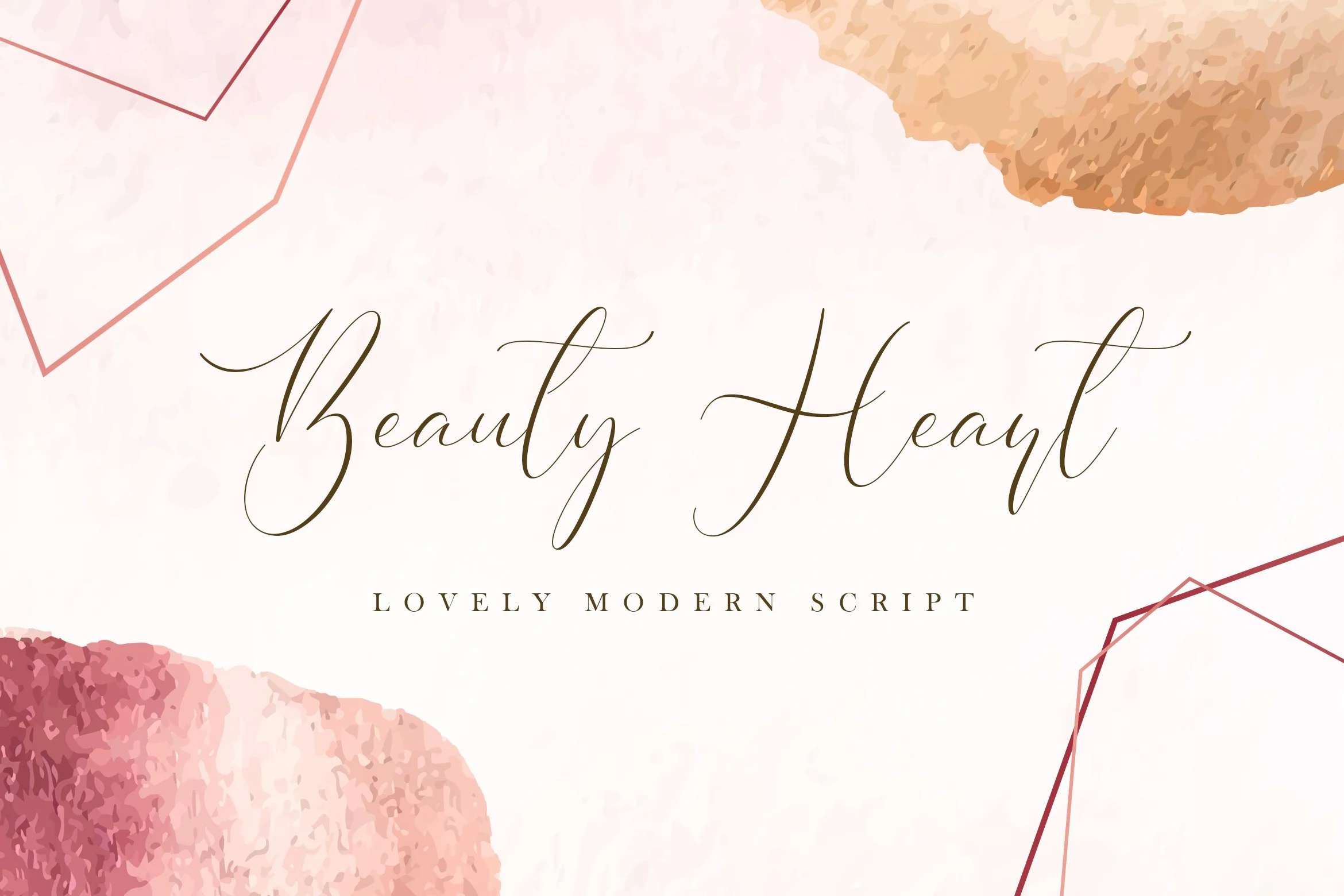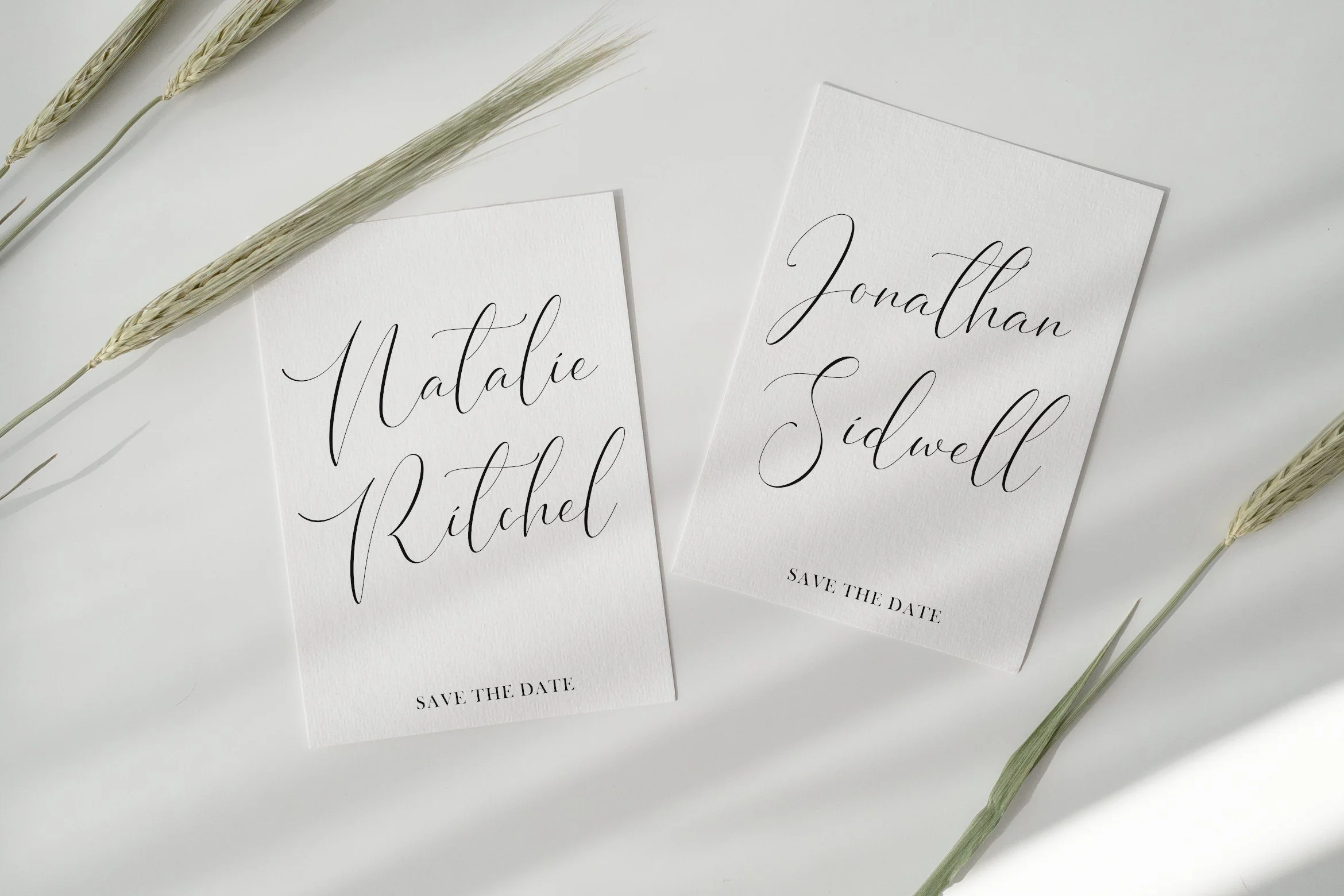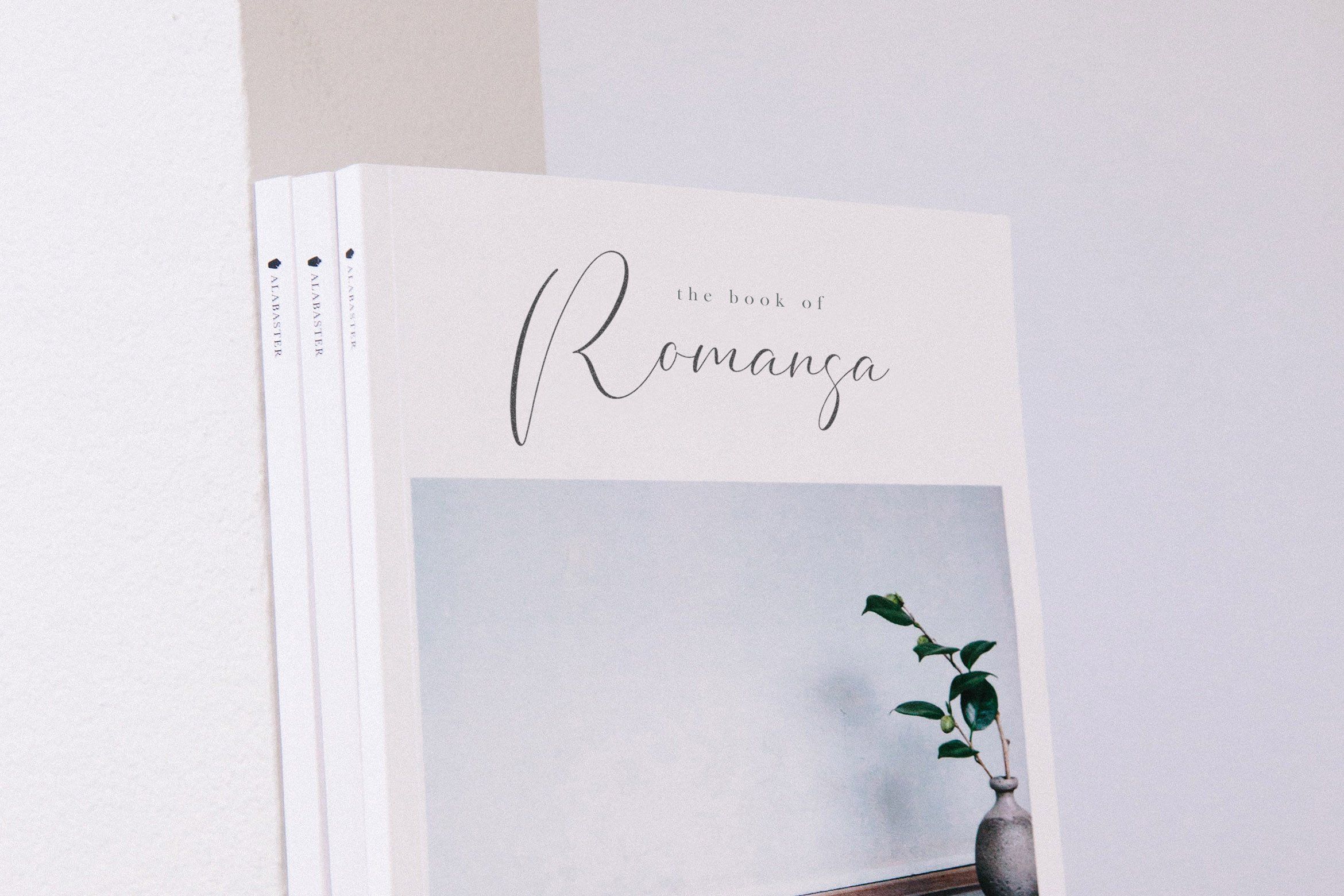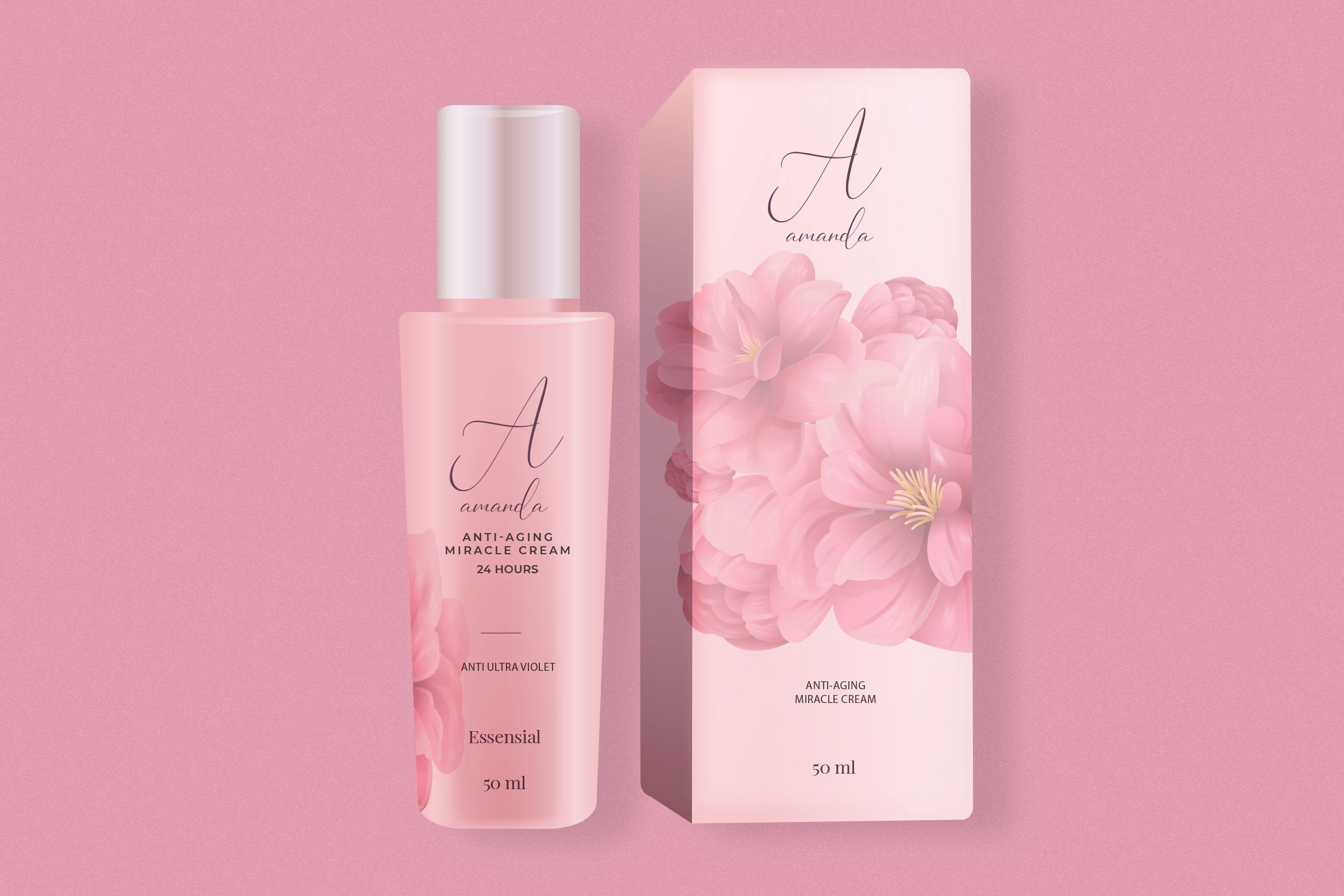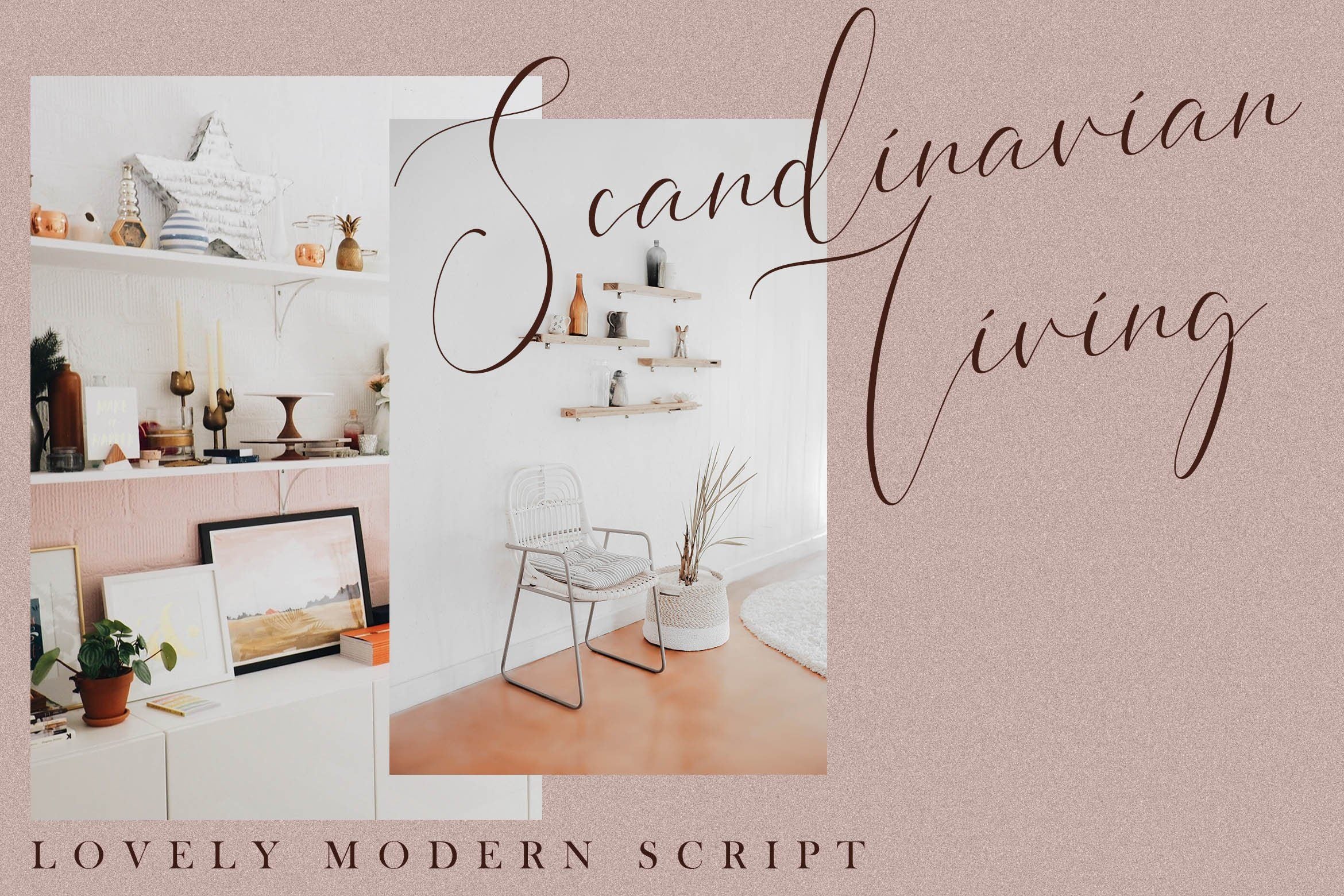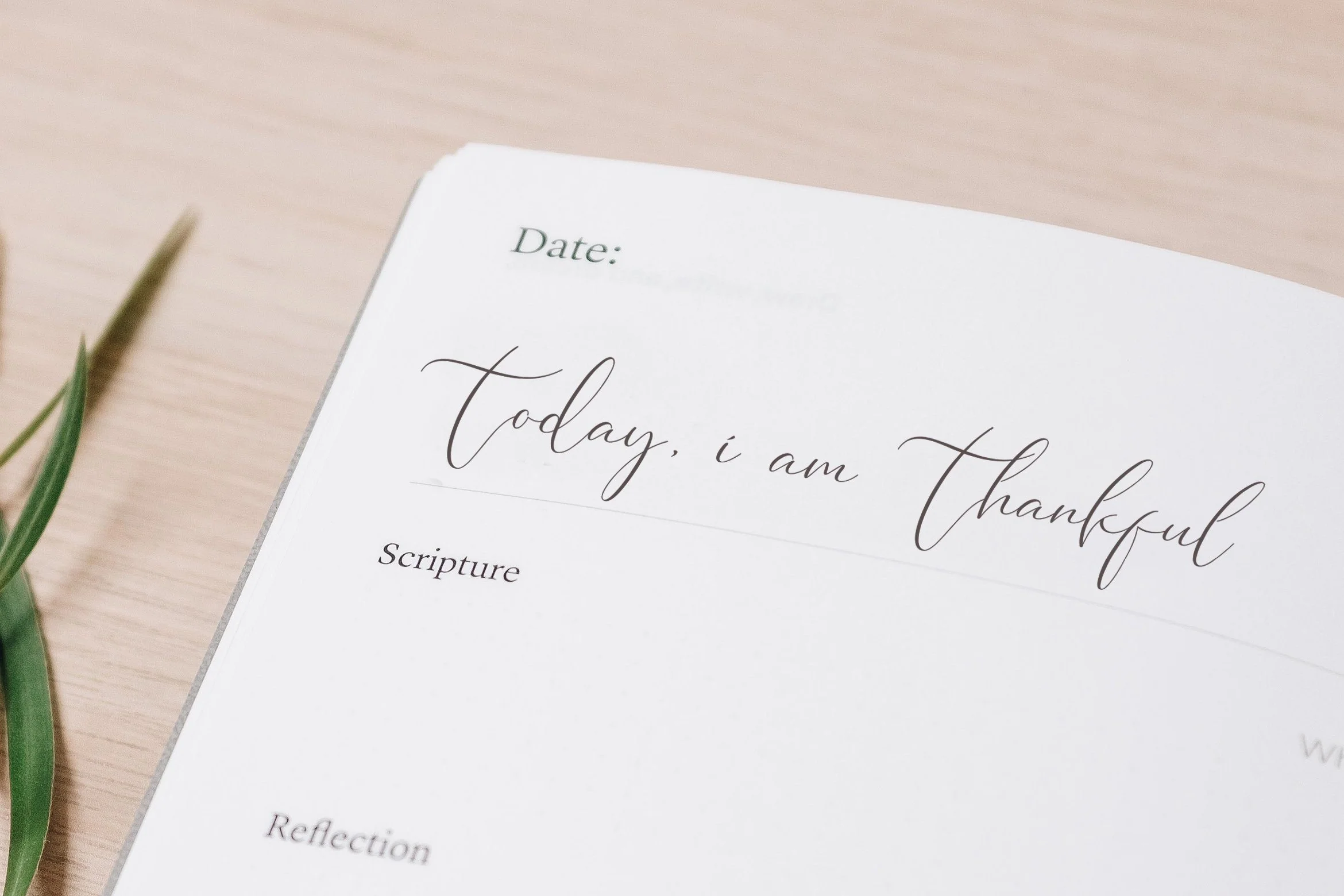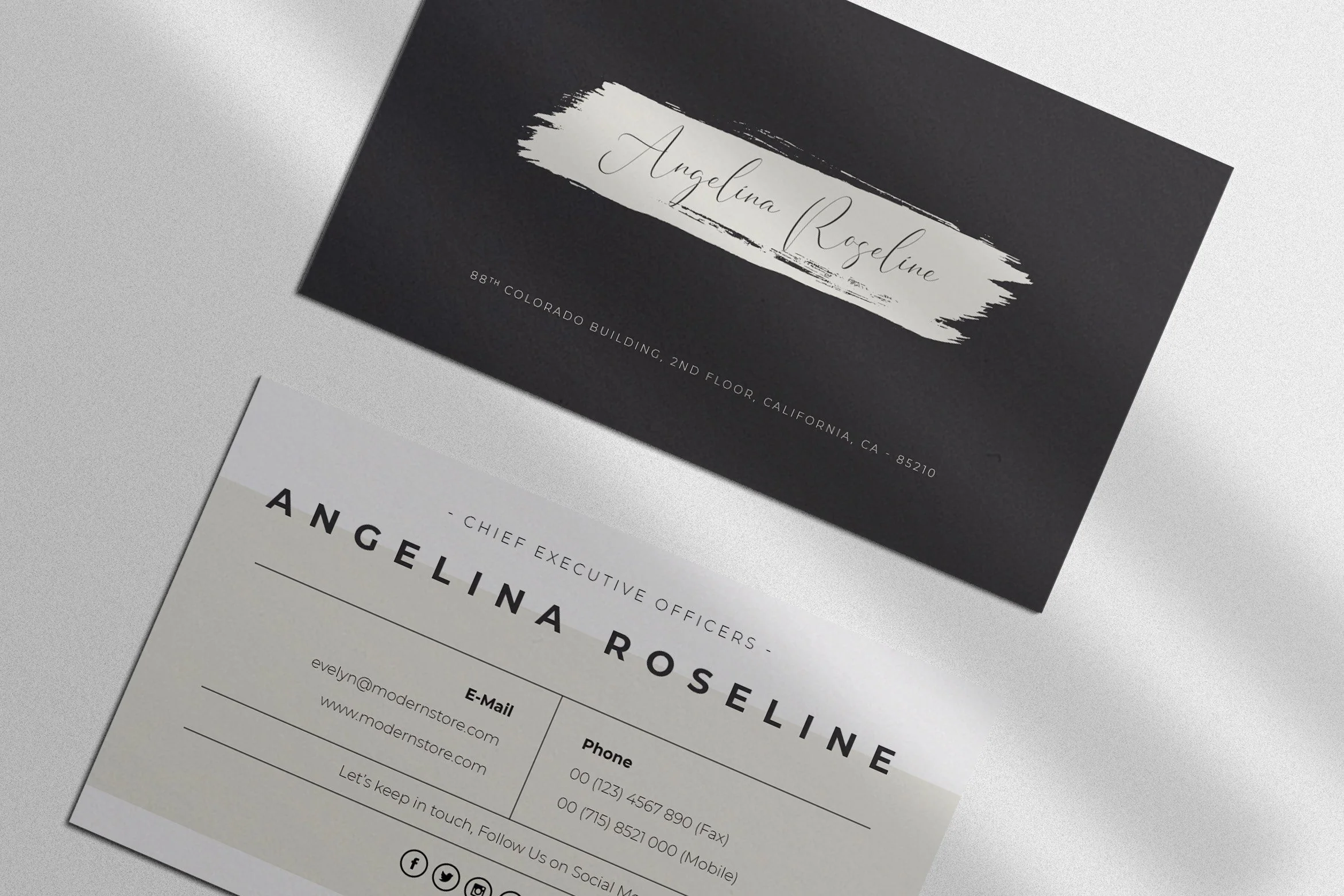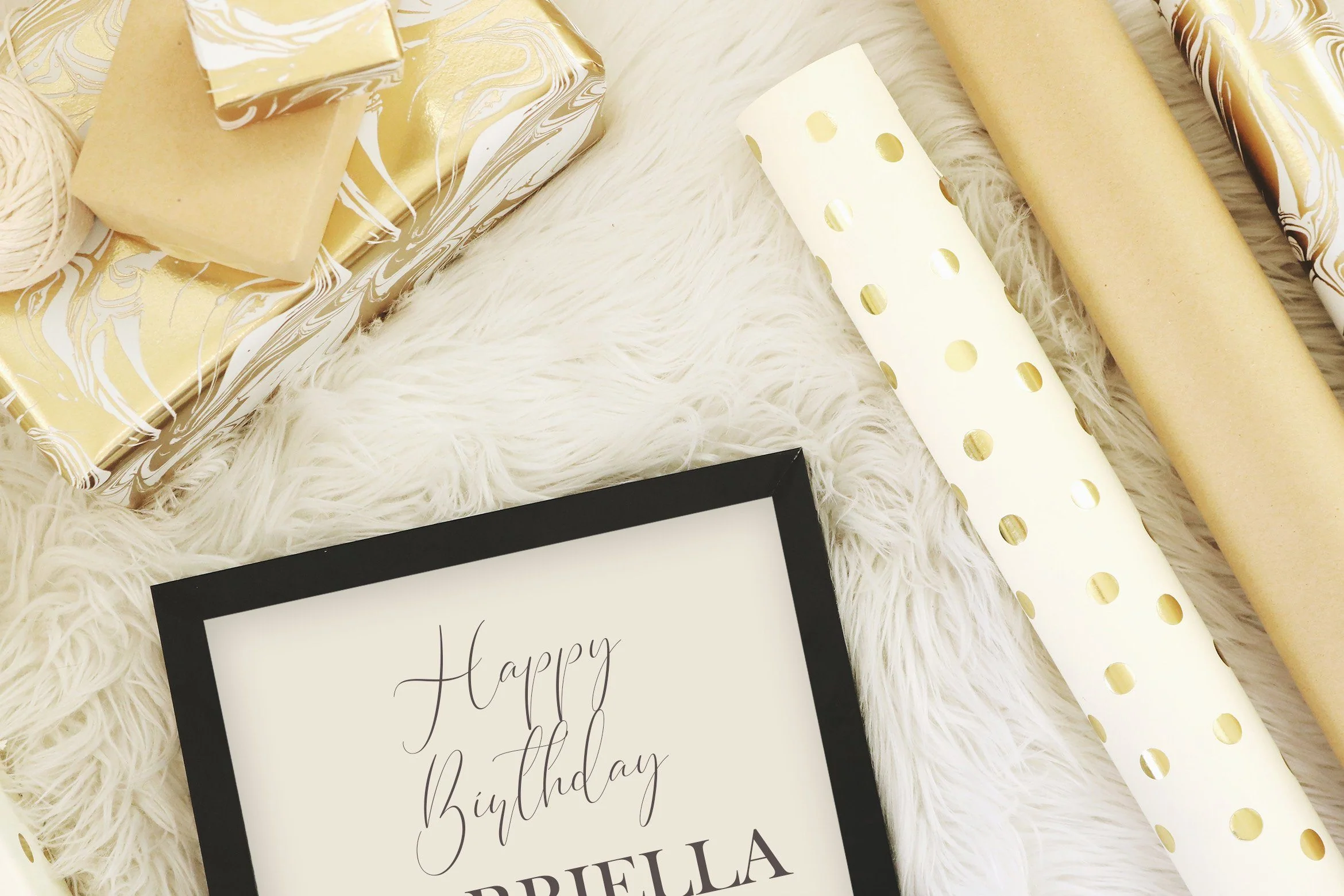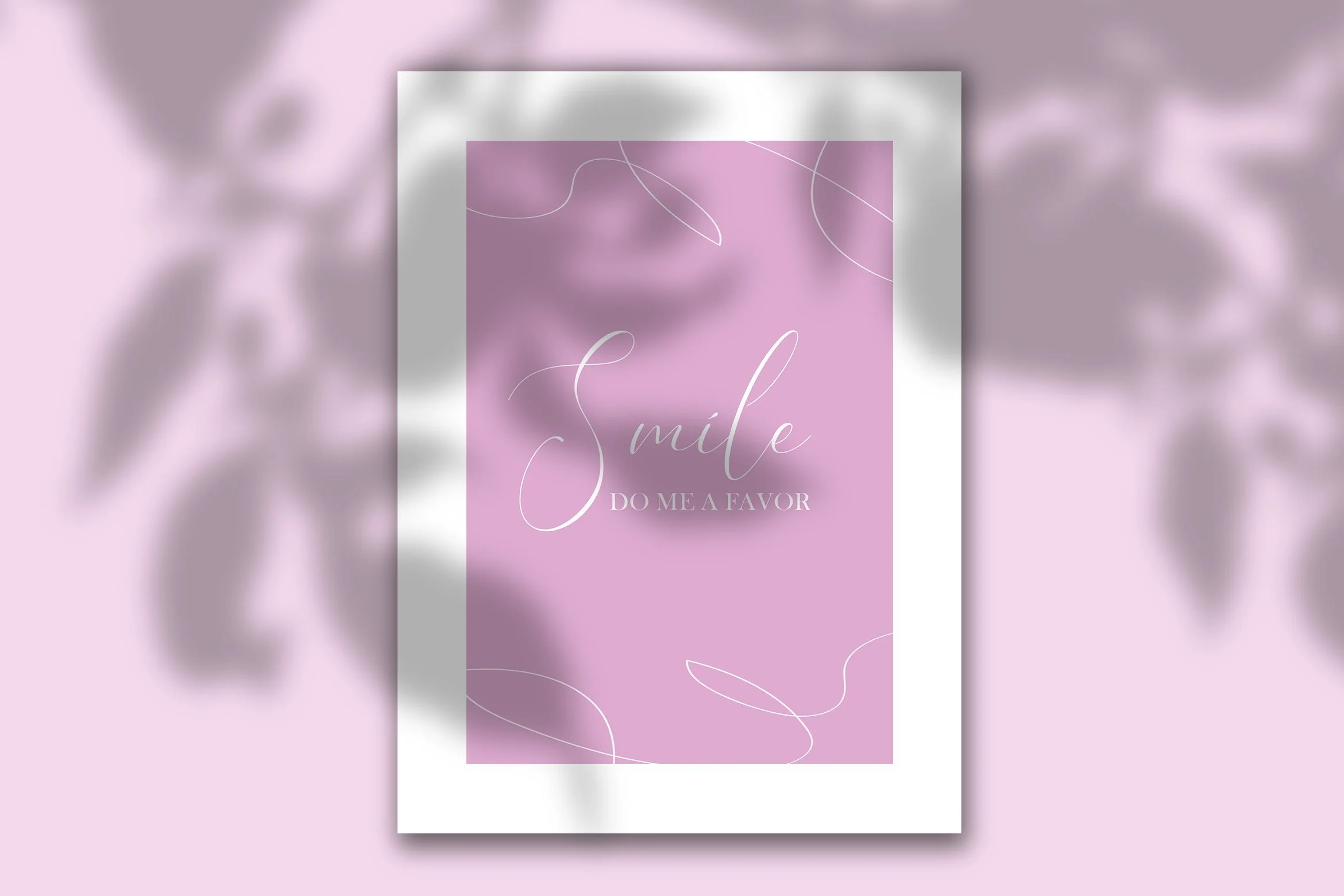
Beauty Heart - Lovely Calligraphy Font
Introducing Beauty Heart - Lovely Calligraphy Font
Beauty Heart is a Beautiful Calligraphy Script Font with Lovely Style. This font is perfect for fashion brand, wedding invitation, business card, logo brand, signature, and also for calligraphy purpose.
This Font Template contains Classy, Elegant, Creative, Cool and has a Unique Concept.
Introducing Beauty Heart - Lovely Calligraphy Font
Beauty Heart is a Beautiful Calligraphy Script Font with Lovely Style. This font is perfect for fashion brand, wedding invitation, business card, logo brand, signature, and also for calligraphy purpose.
This Font Template contains Classy, Elegant, Creative, Cool and has a Unique Concept.